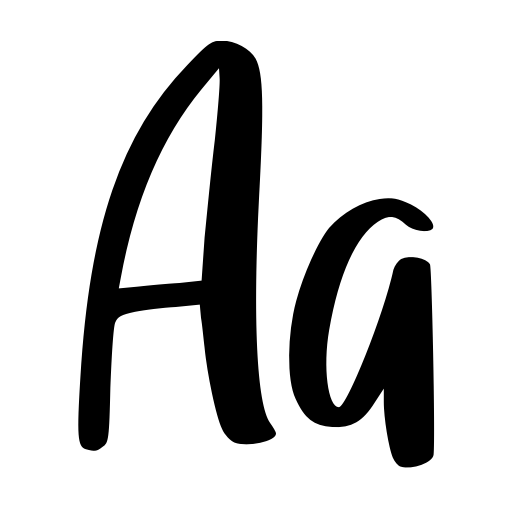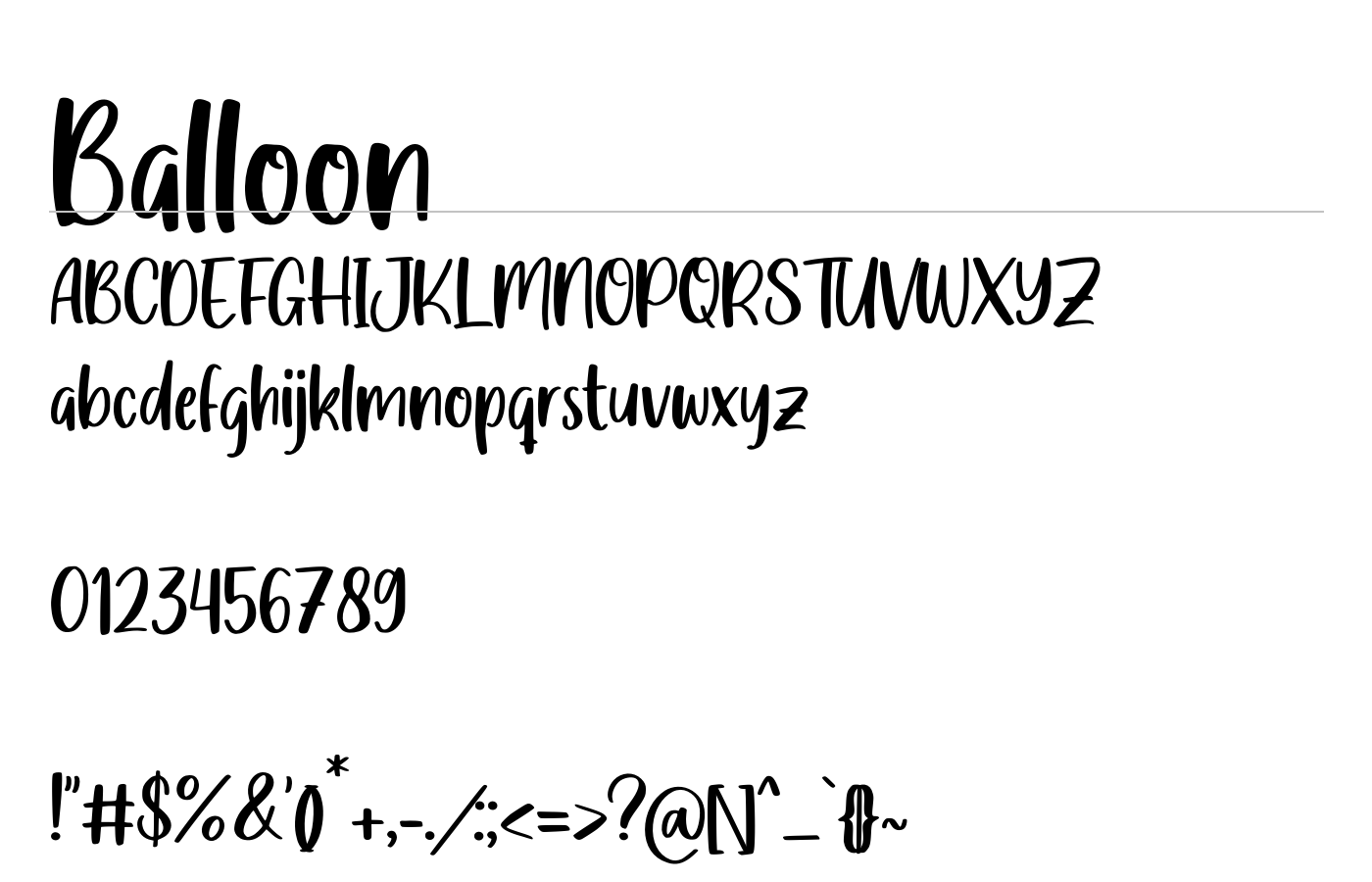
Balloon Font is a playful and informal handwritten script with a lively, casual feel. Its tall, slightly condensed letterforms feature smooth, rounded strokes that evoke a friendly and approachable personality, making it perfect for creative projects, greeting cards, or branding that aims for a fun and youthful vibe. This font works well in headlines and logos where a personal touch and energetic style are desired.
Balloon Font
About Balloon Font
| Font family | Balloon Font |
| Designer | Fatmawati |